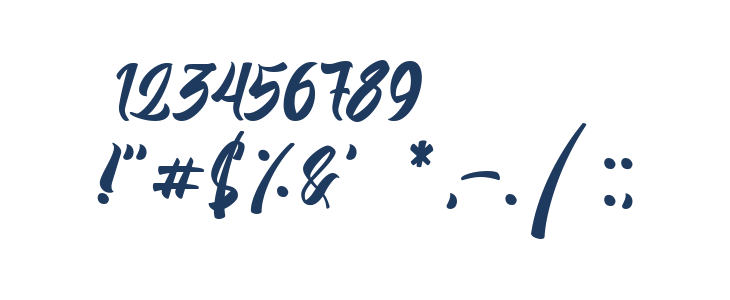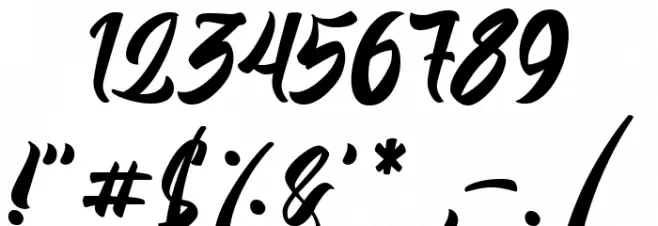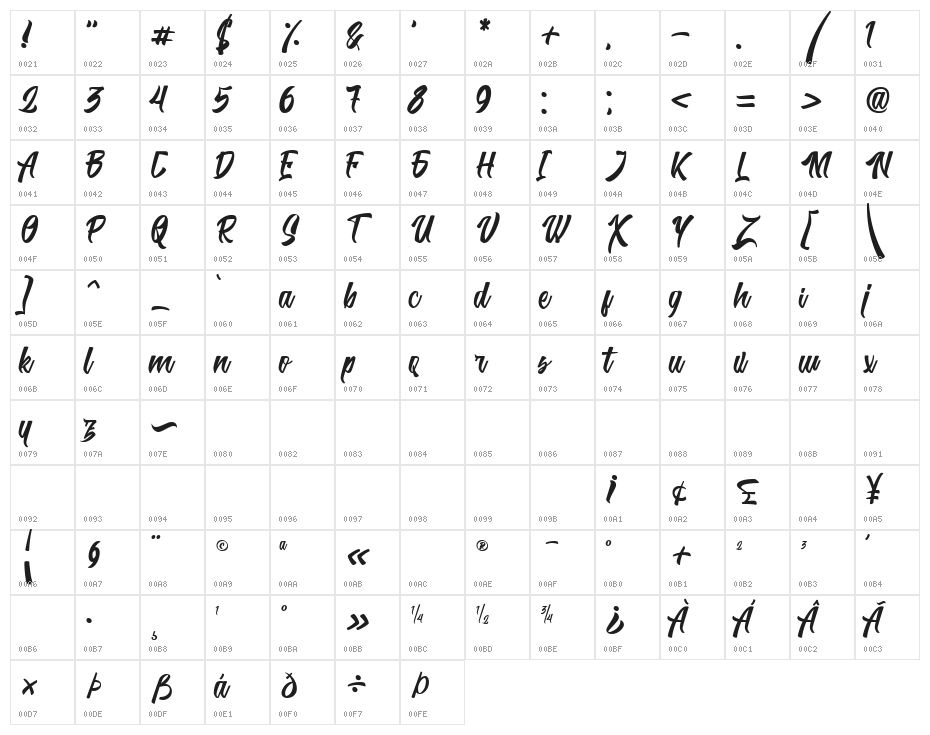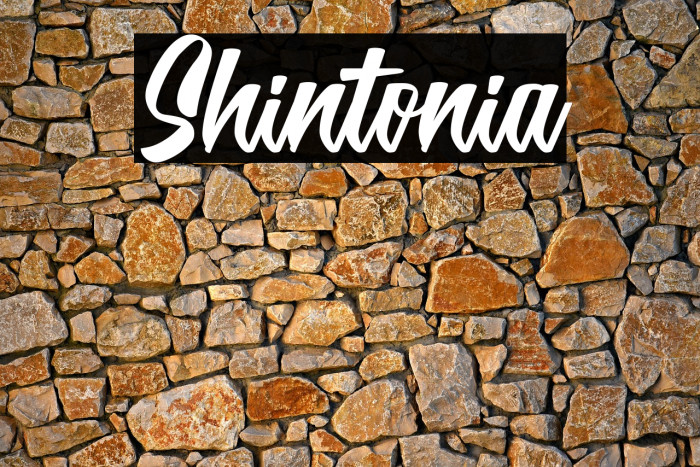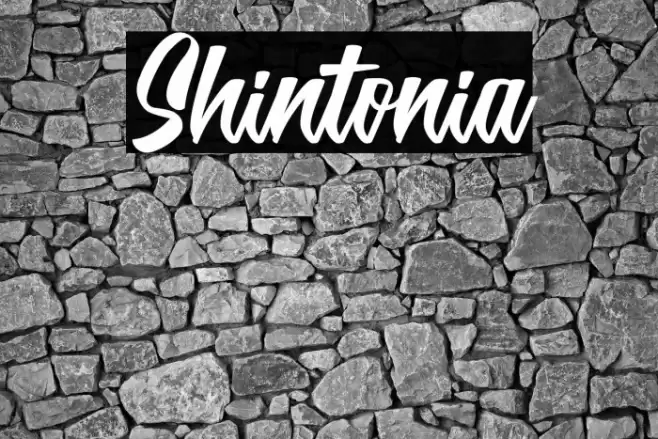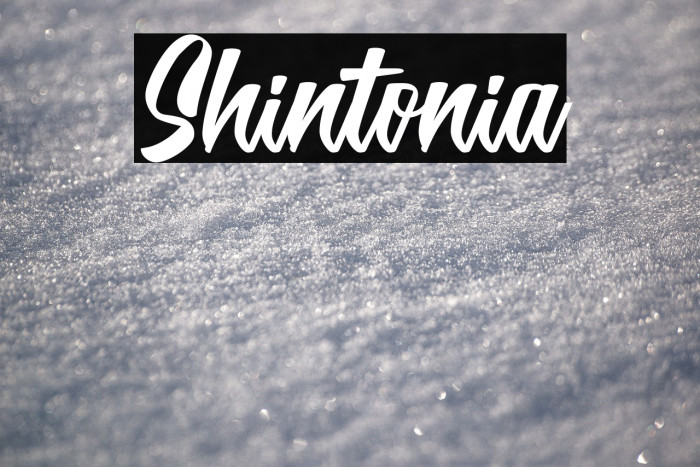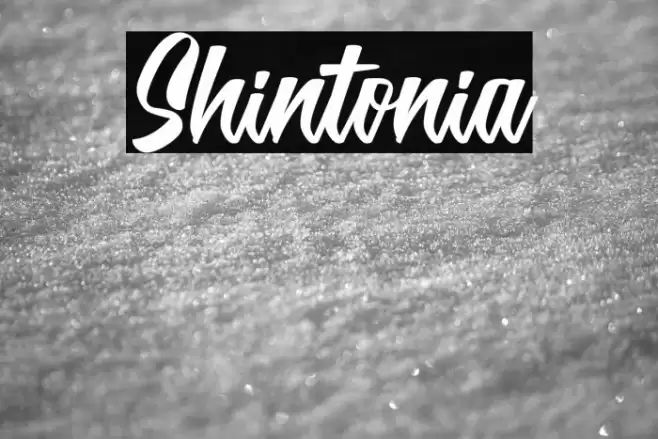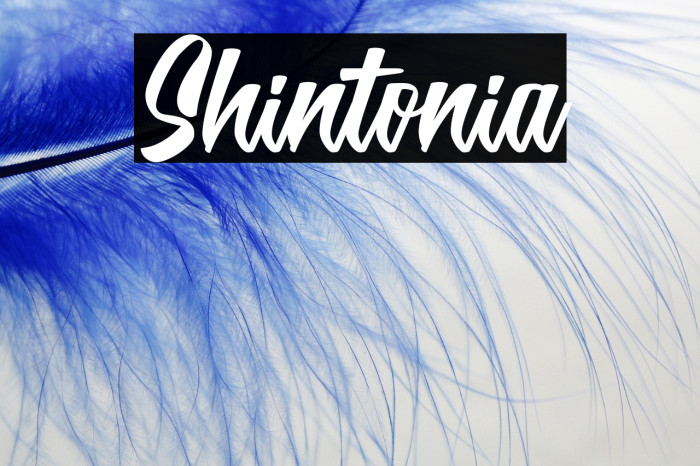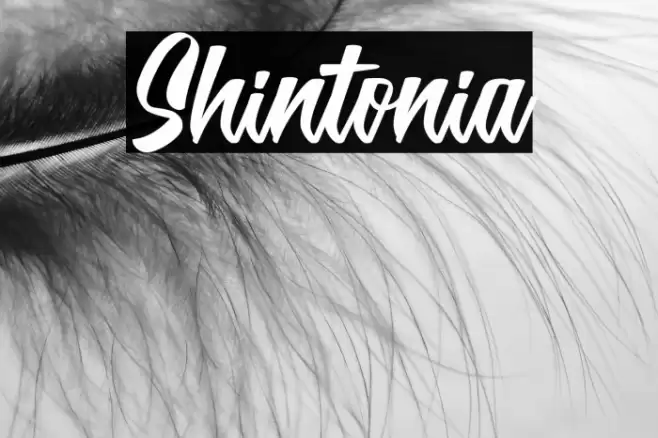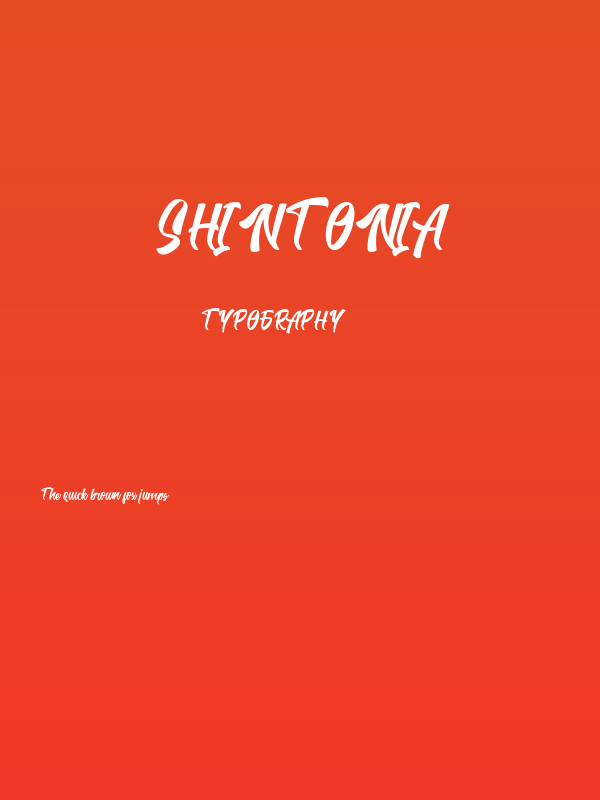
Shintonia Font
Shintonia Description
This font features a bold and dynamic script style, characterized by its flowing, cursive letterforms that convey a sense of movement and elegance. The strokes are thick and consistent, providing a strong visual impact. The uppercase letters are particularly striking, with exaggerated curves and flourishes that add a decorative touch. The lowercase letters maintain a cohesive style, with smooth connections between characters, enhancing readability while retaining an artistic flair. The numbers and special characters are designed to match the overall aesthetic, ensuring a uniform appearance across all text elements.
| Use Case | Logos, Invitations, Headlines |
| Proposed Projects | Ideal for branding projects, wedding invitations, greeting cards, and any design that requires a touch of elegance and sophistication. |